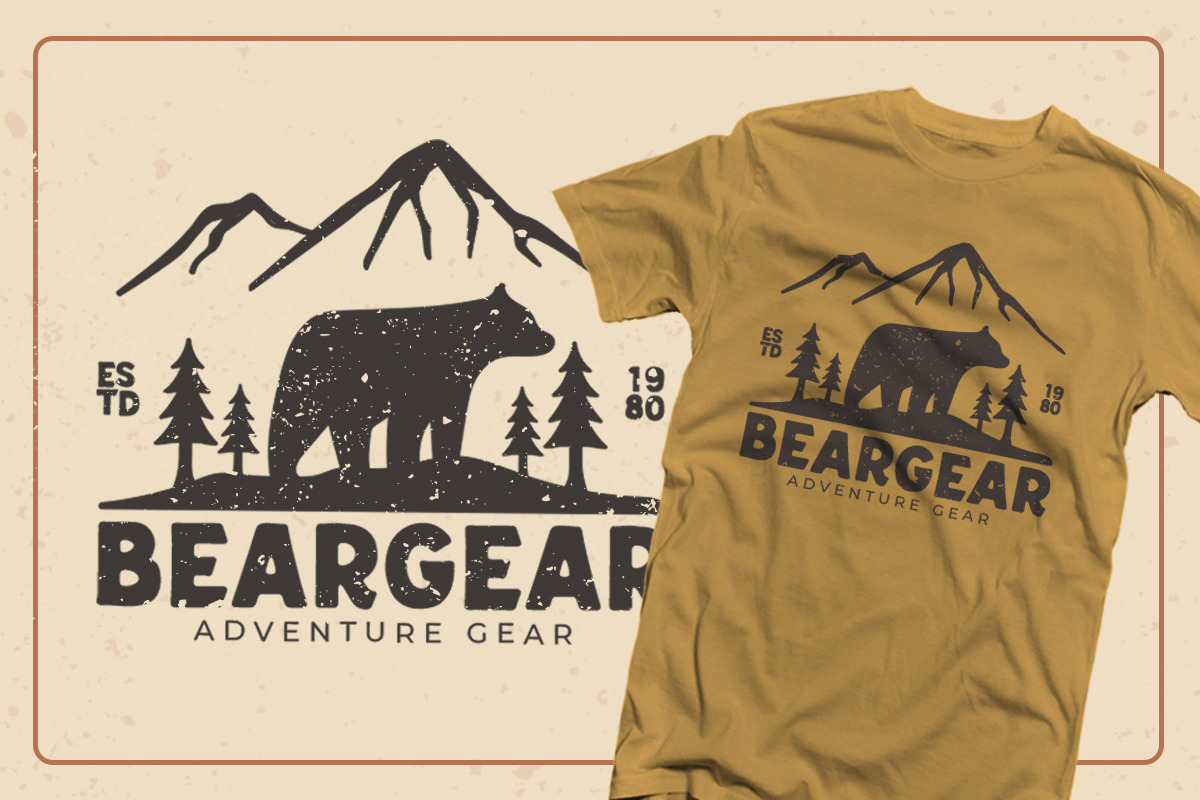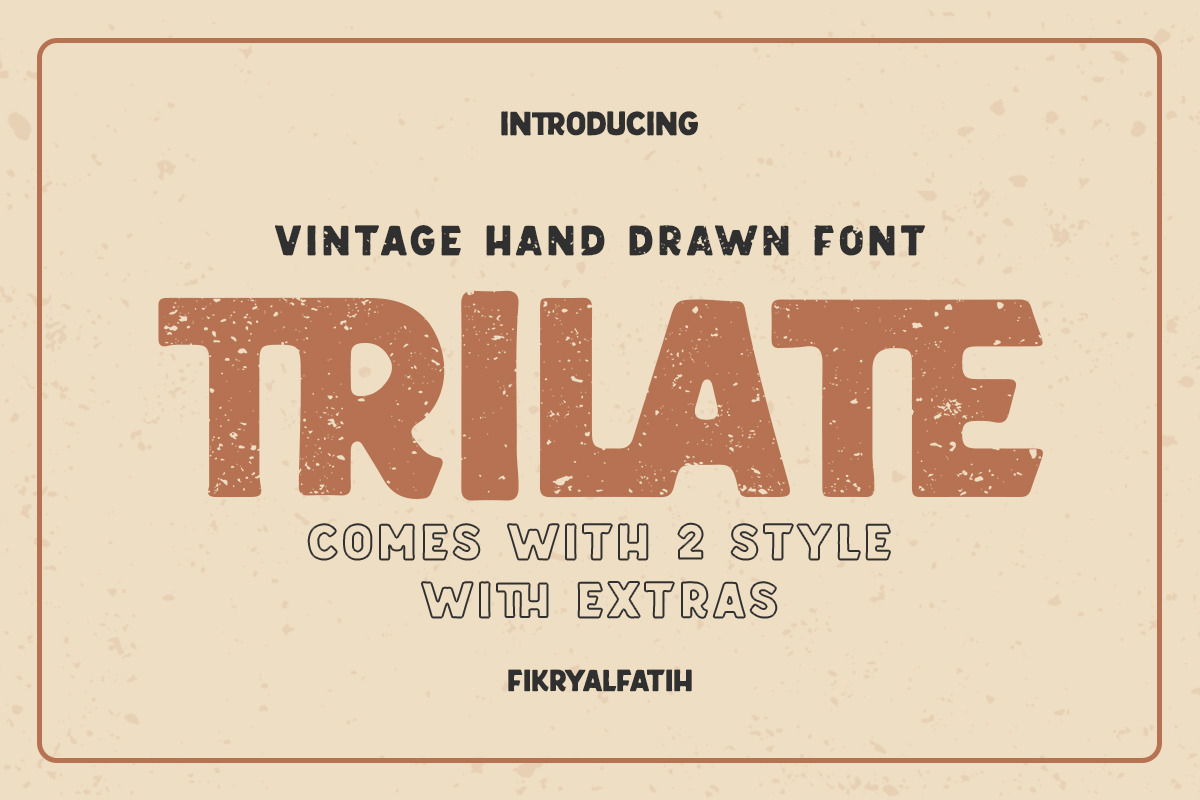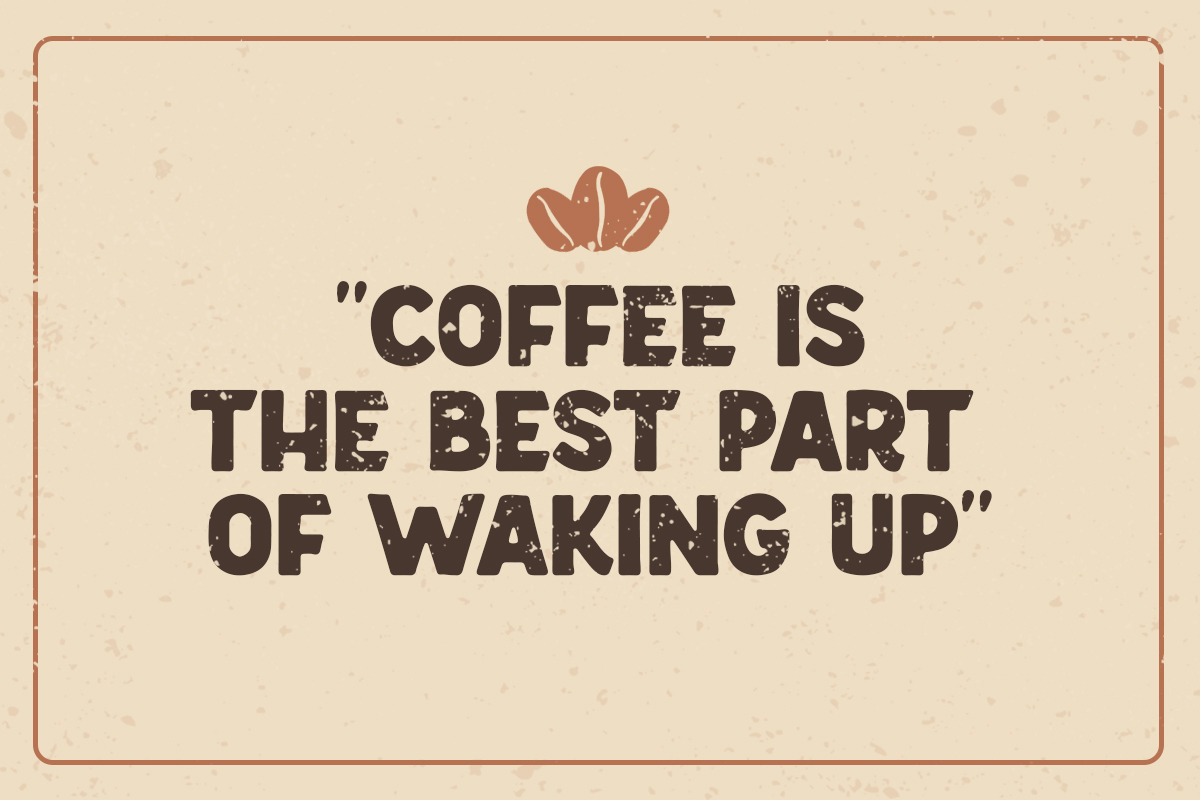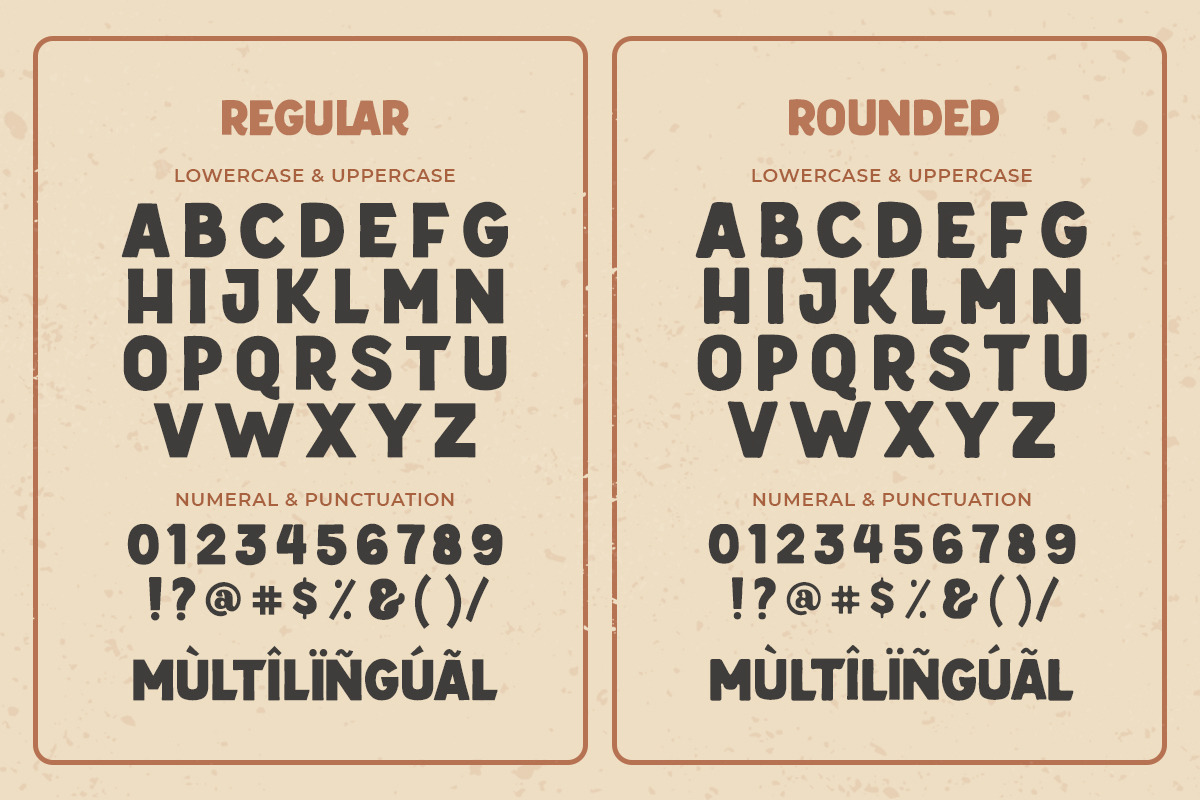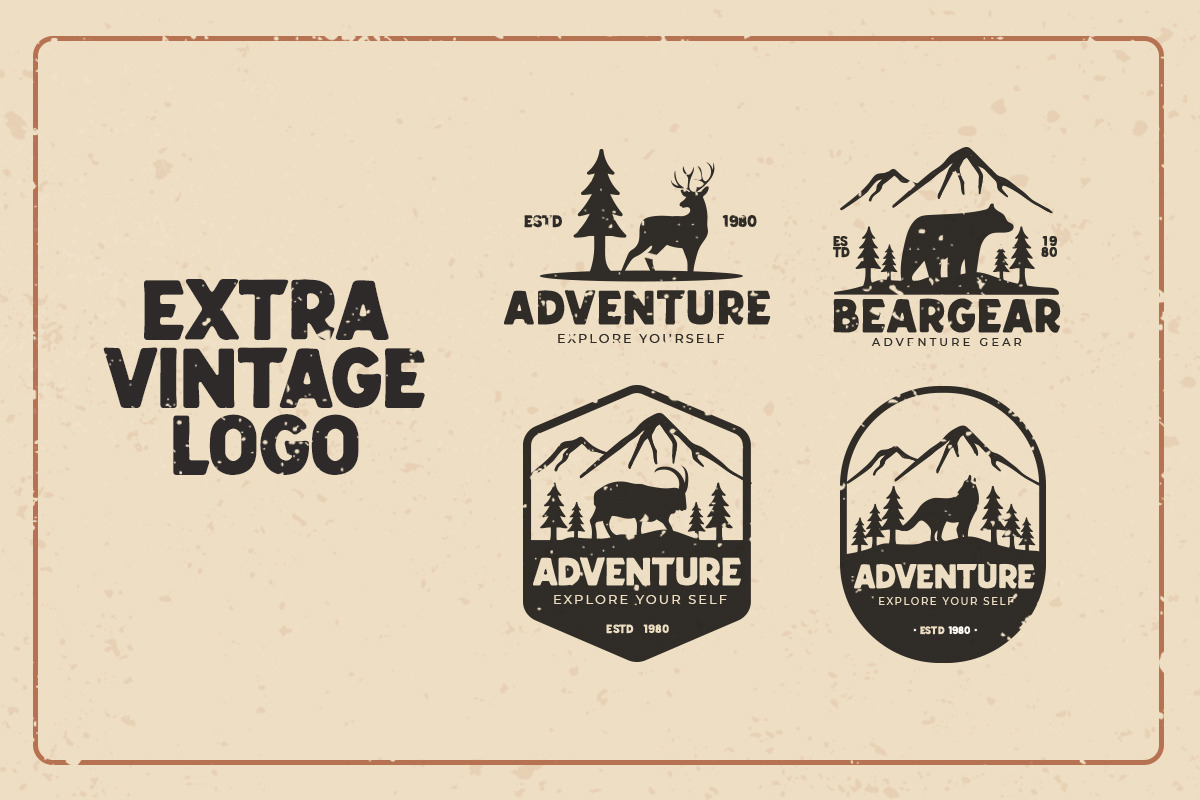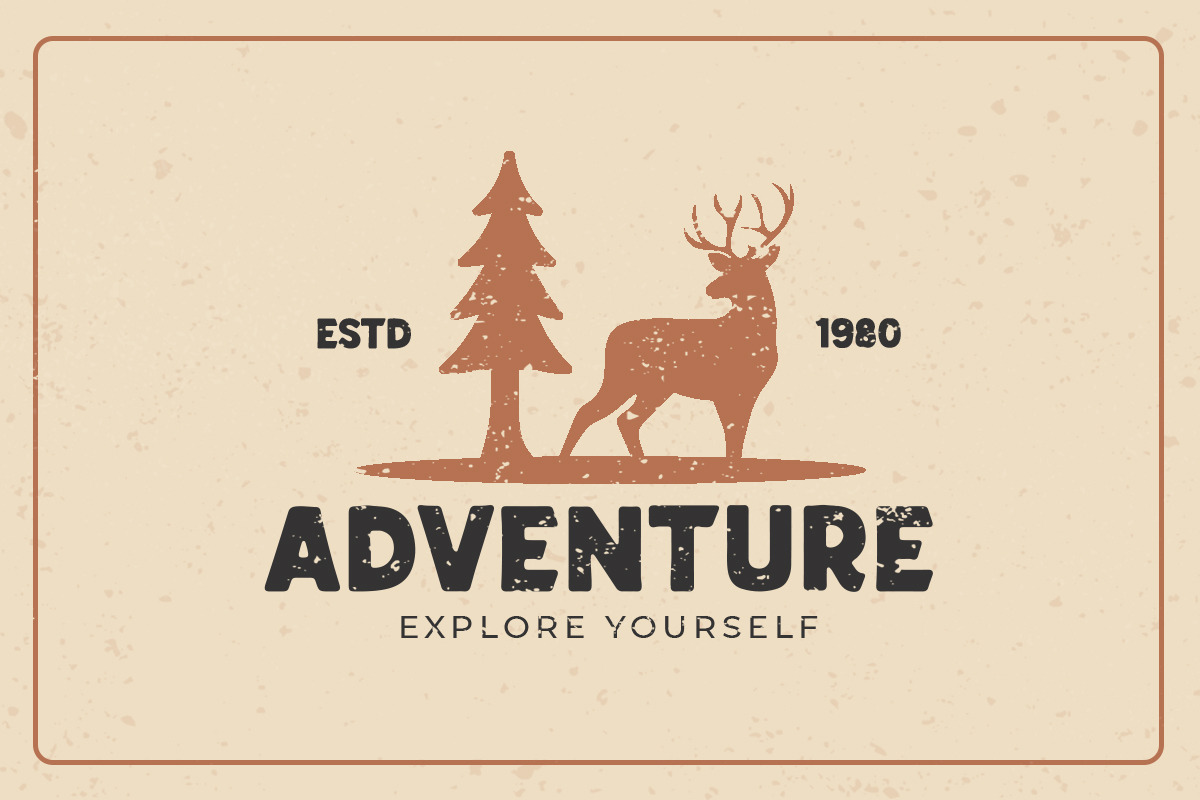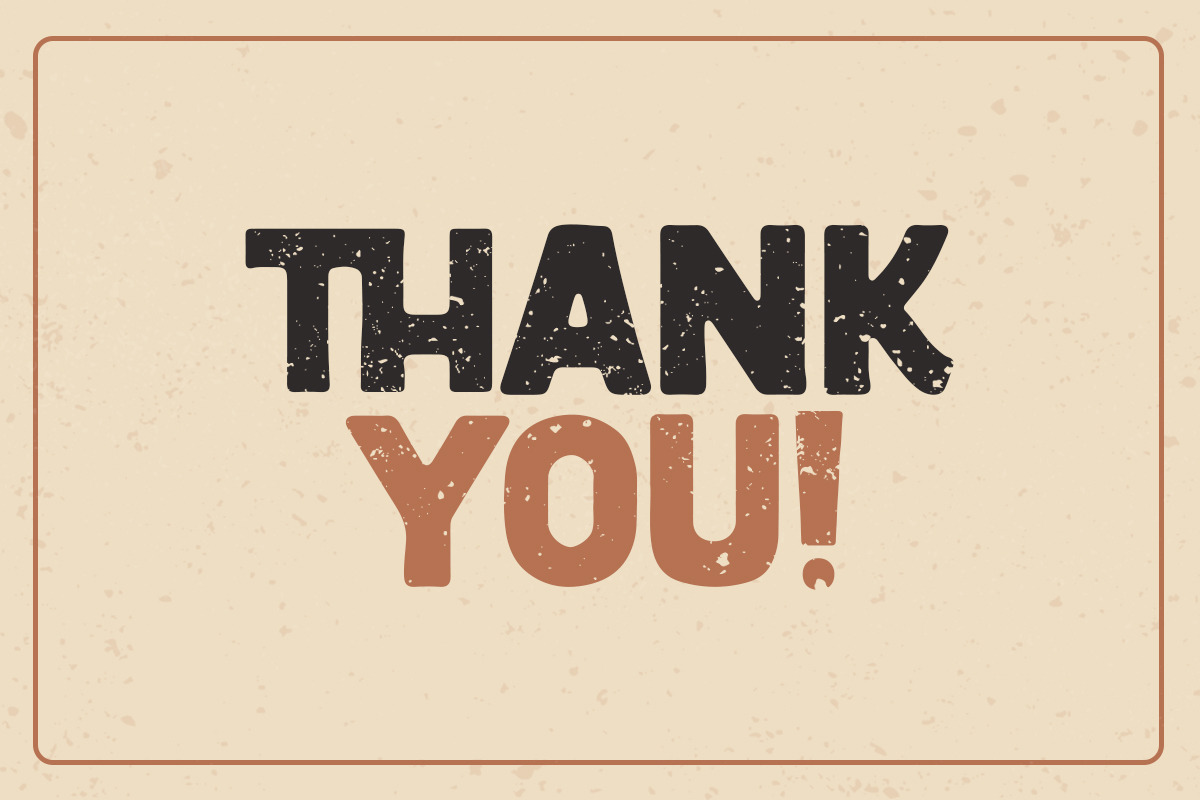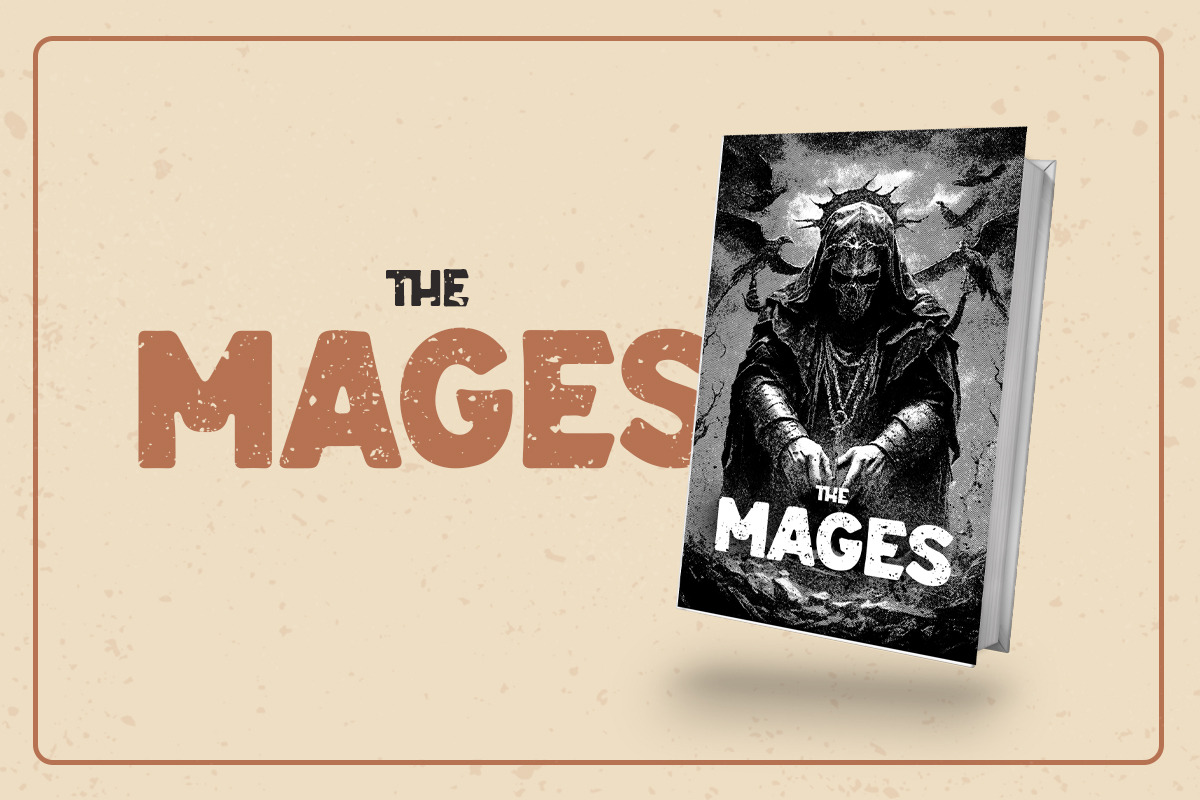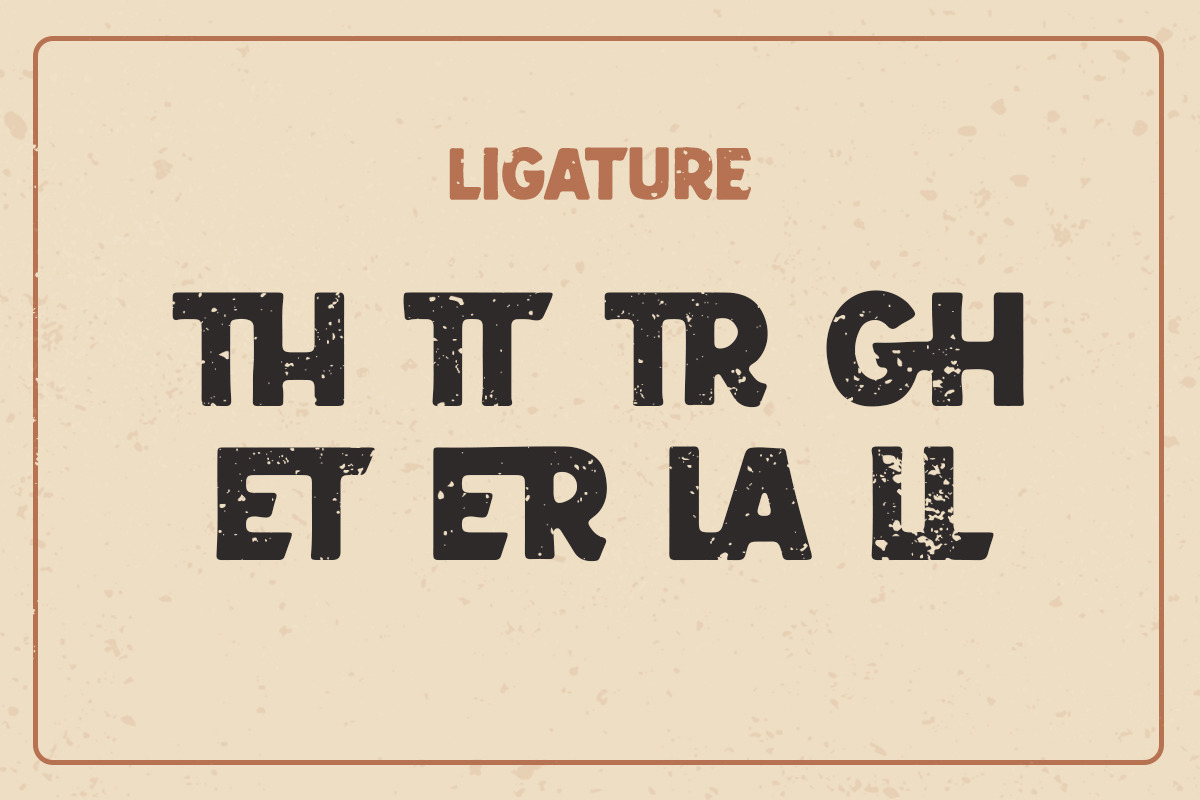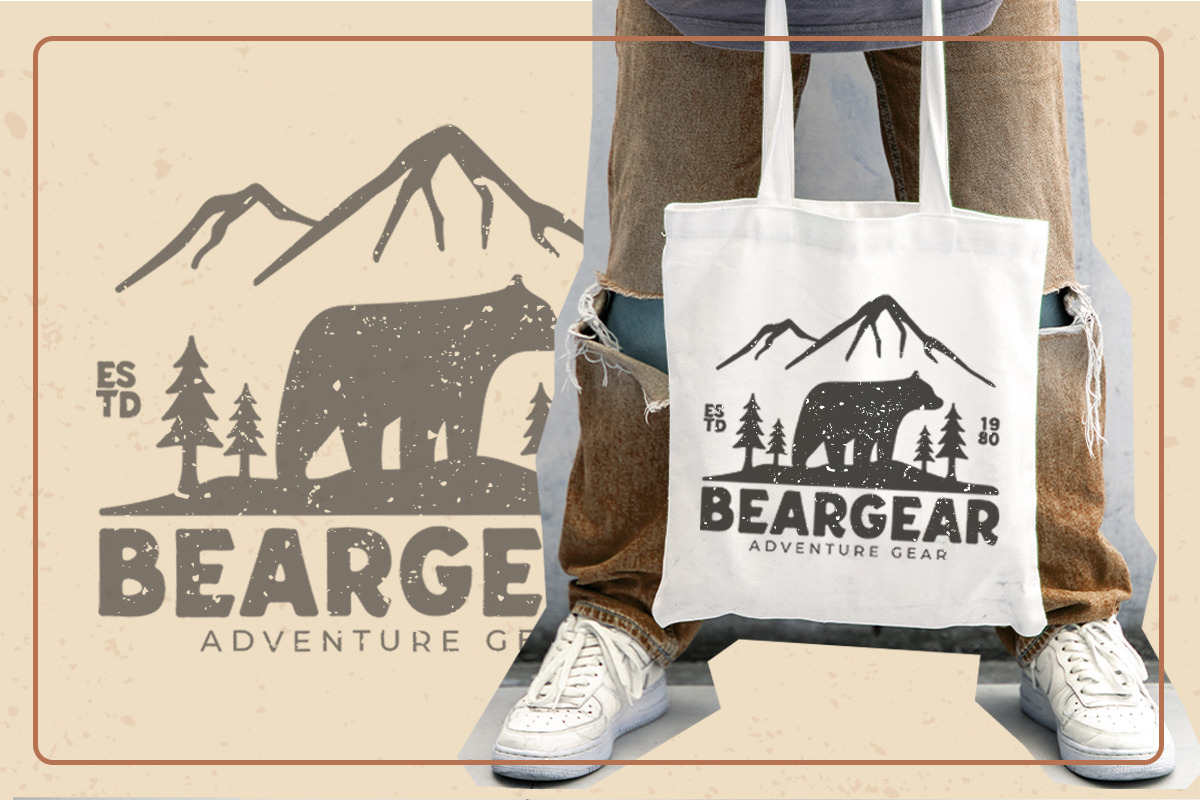
Trilate - Handdrawn Font + EXTRAS
Trilate is an inspiring vintage display font. This font gives a vintage, classic, ancient, and handmade impression. This font comes in 2 styles, regular and rounded, and extras vintage logo.
Trilate is perfect for people looking for a vintage aesthetic or logotype. Suitable for any graphic design such as branding materials, t-shirts, prints, business cards, logos, posters, t-shirts, photography, quotes, etc.
- All glyphs with Caps styles
- Multilingual characters
- Extra Vintage Logo
- Ligature characters